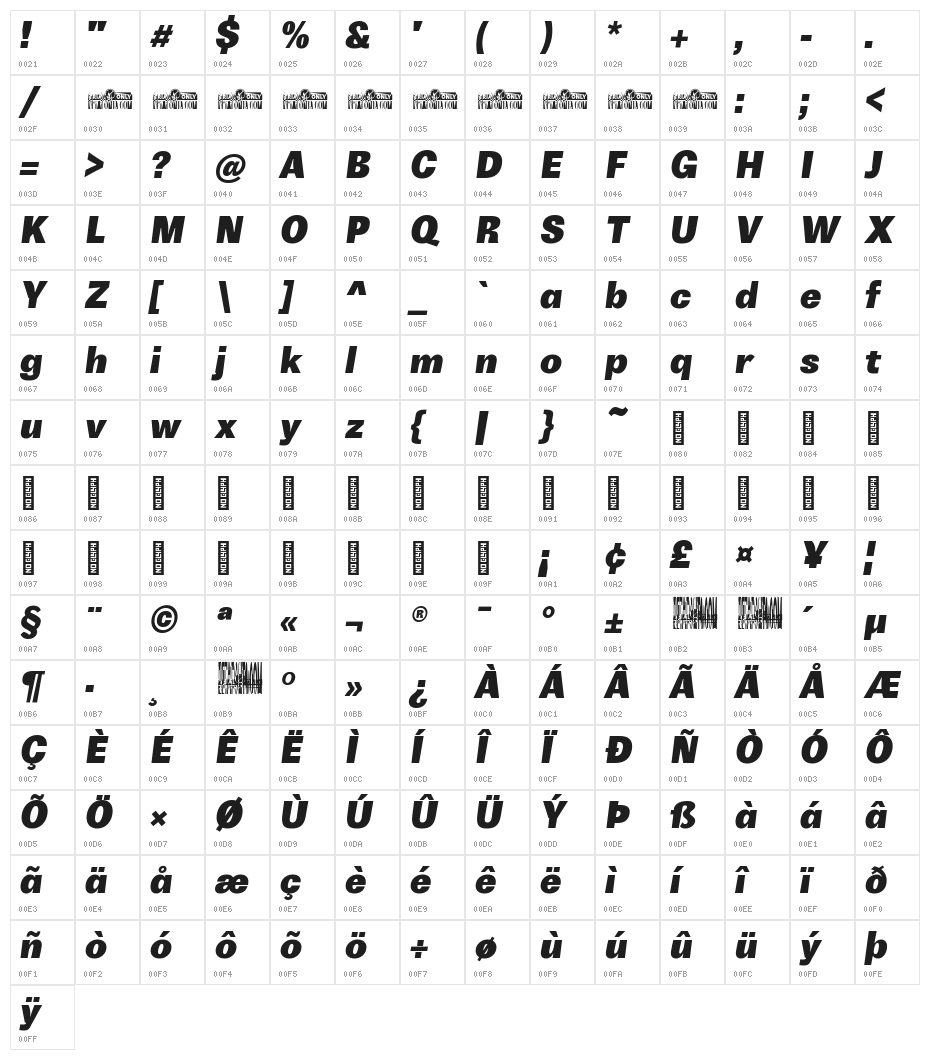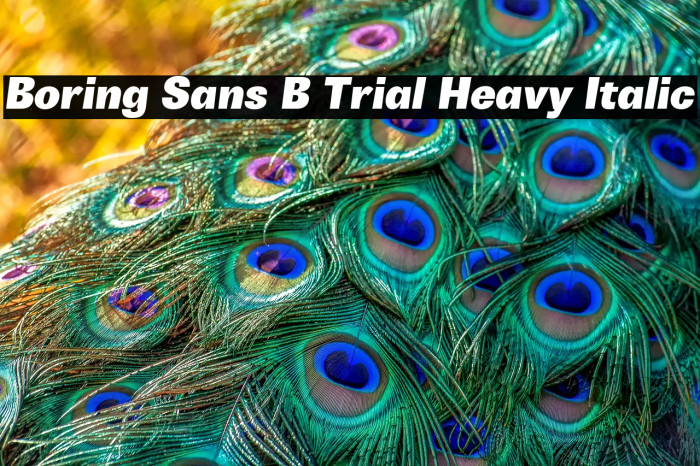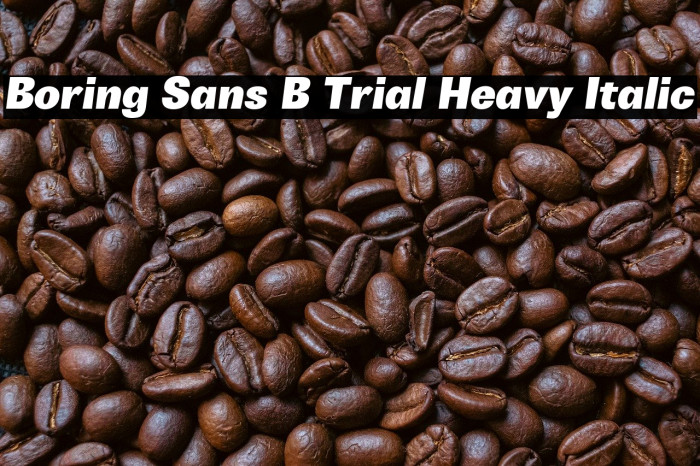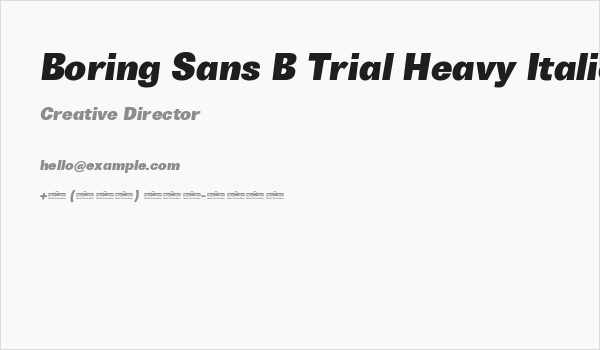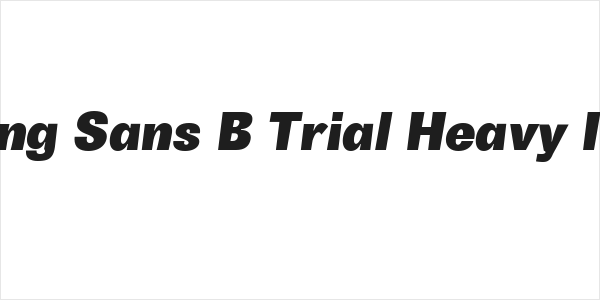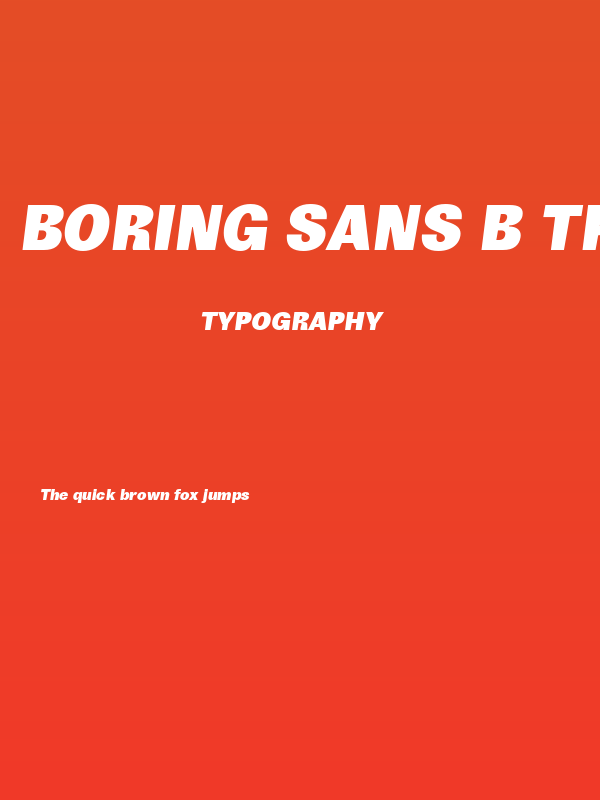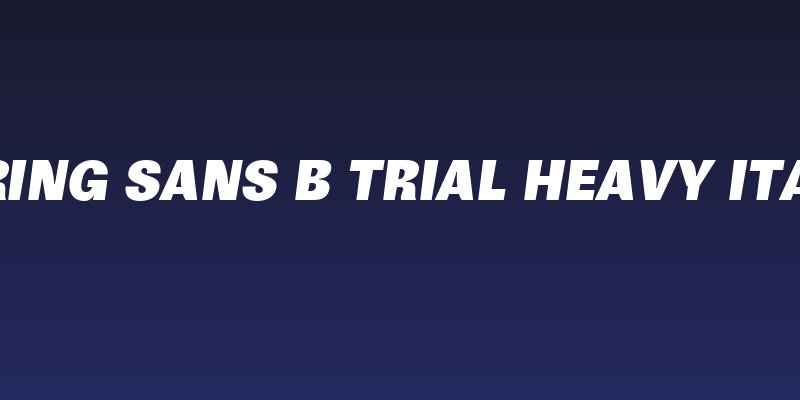
Boring Sans B Trial Heavy Italic Font
Boring Sans B Trial Heavy Italic Description
This font features a bold and heavy style with a distinct italic slant, giving it a dynamic and assertive appearance. The characters are robust and impactful, making them highly visible and attention-grabbing. The uppercase and lowercase letters maintain a consistent weight, ensuring uniformity across text. The numerals and special characters are designed to match the boldness of the alphabet, providing a cohesive look. This font's strong presence makes it suitable for projects that require emphasis and clarity.
| Proposed Projects | Ideal for headlines, posters, branding, and advertising where a bold statement is needed. |